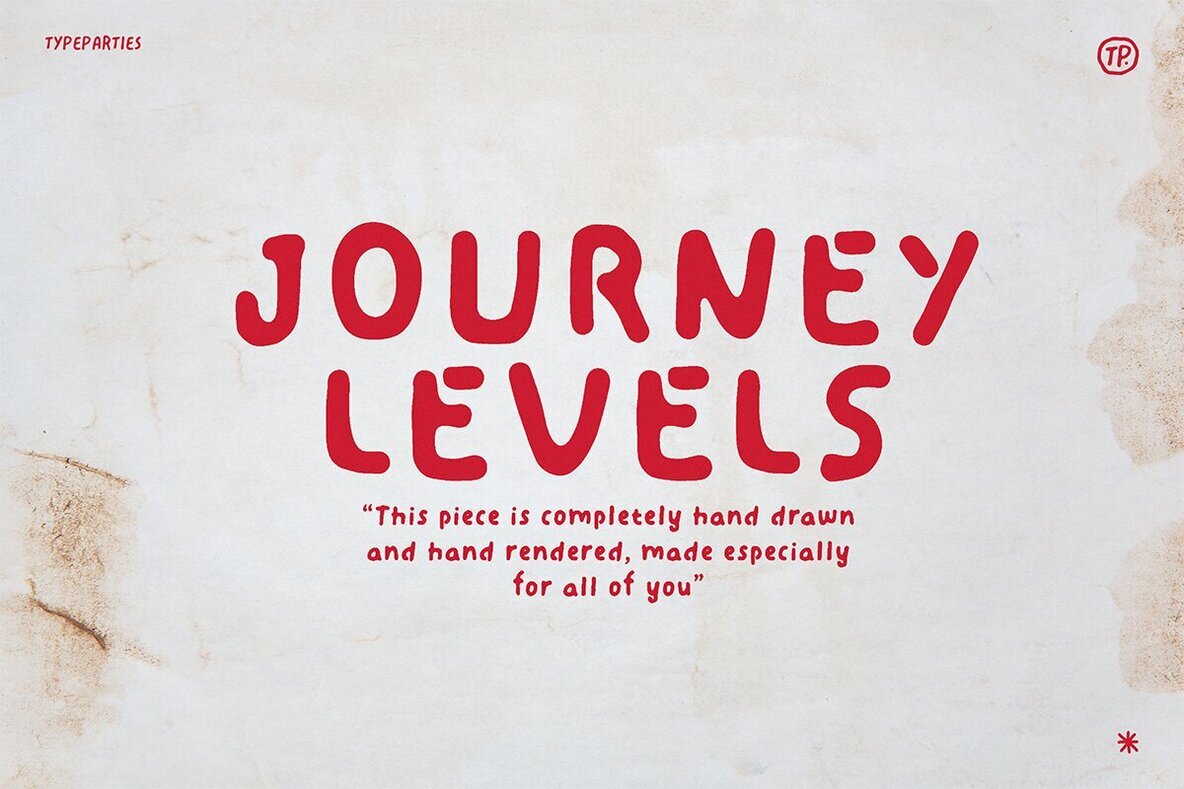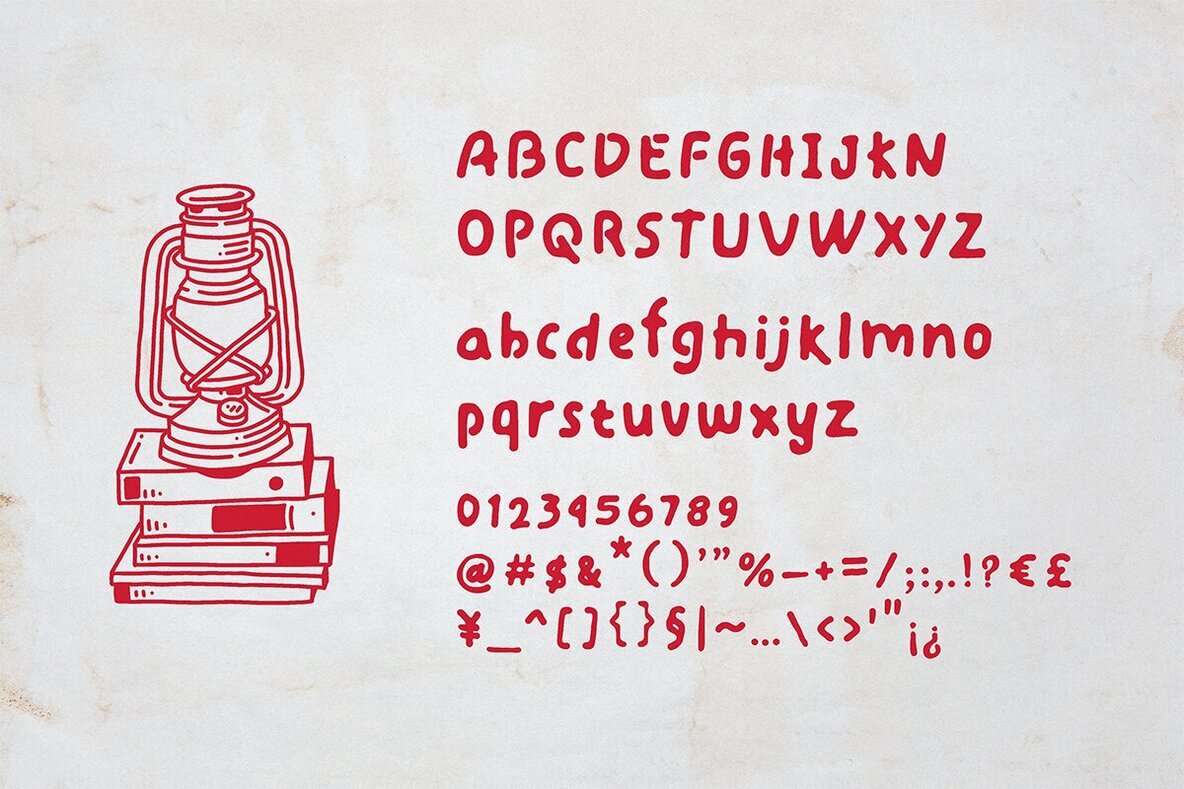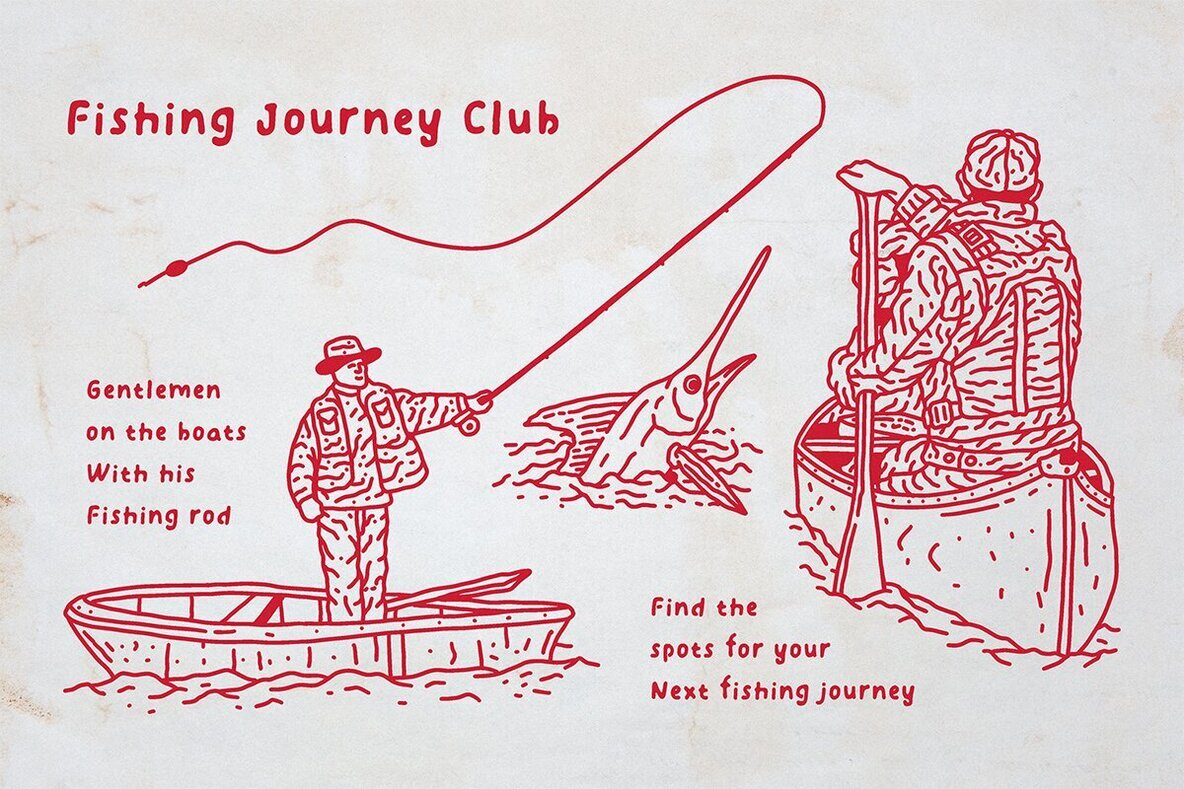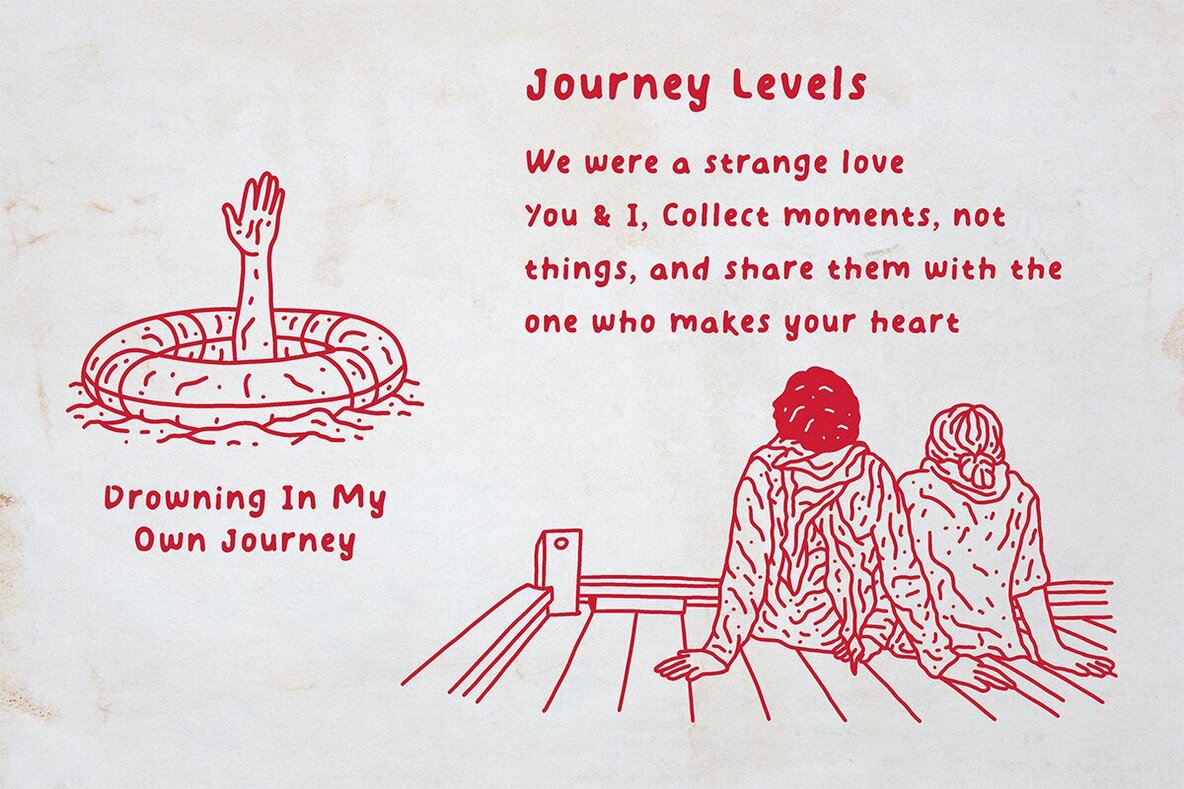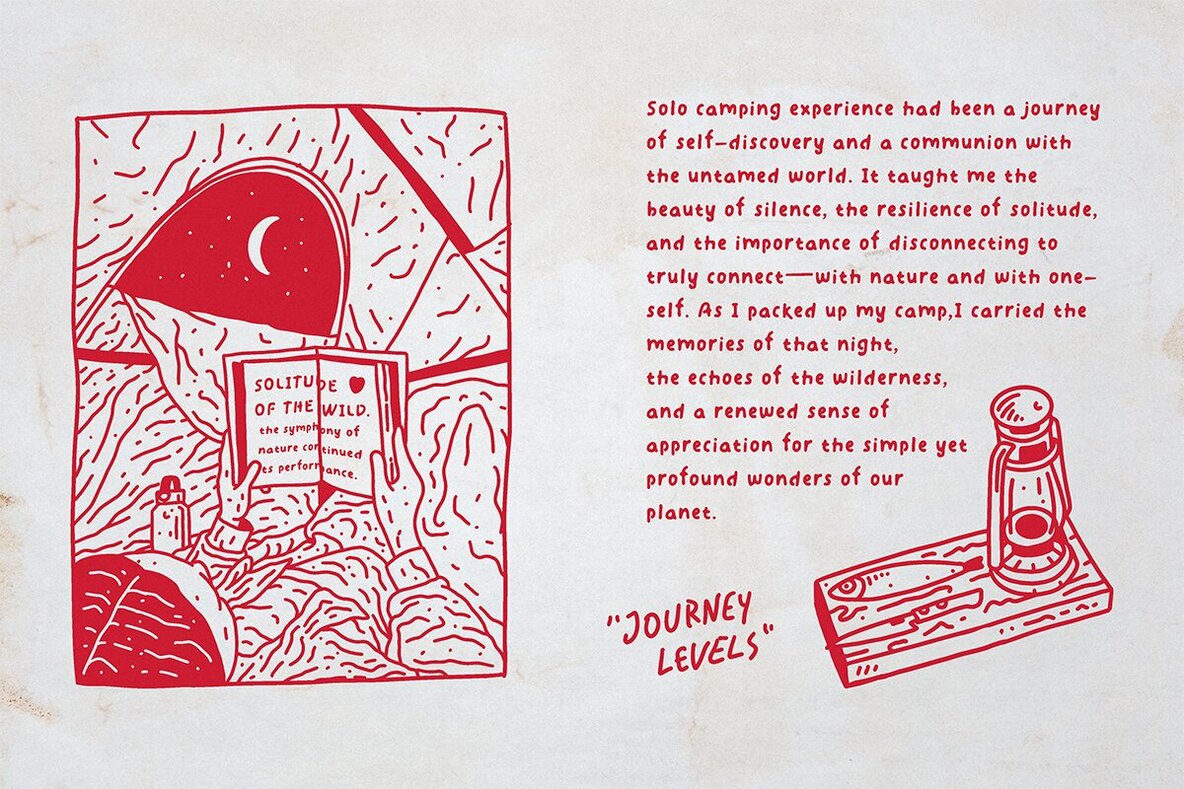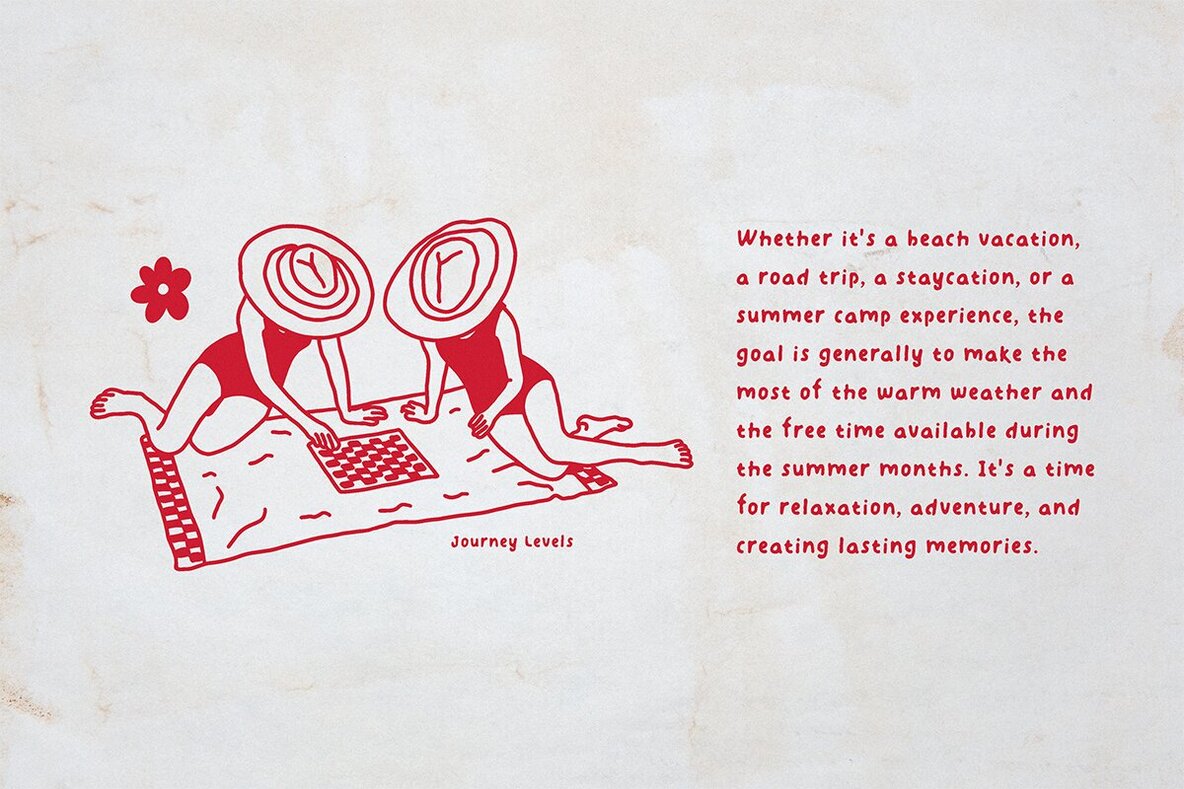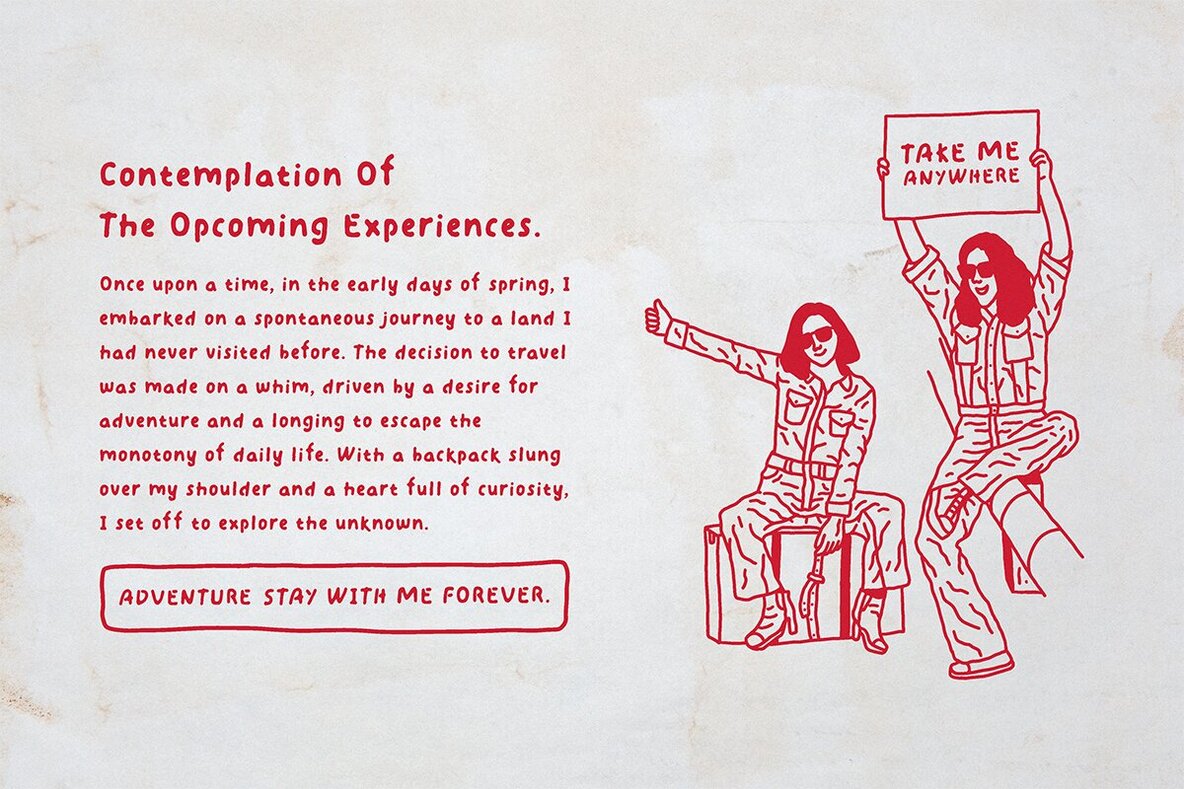
Journey Levels Font
ATP Journey Levels
Journey Levels is a handwritten font that embodies warmth and a personal touch, thanks to its soft, rounded edges and playful irregularities. This typeface elegantly showcases its hand-drawn and hand-rendered essence through bold, organic letterforms and varying stroke widths. Its nostalgic and sincere character makes it an excellent choice for storytelling, creative branding, or projects that cherish authenticity and craftsmanship. A testament to its heartfelt and community-driven spirit, Journey Levels adds a distinctive voice to your creative work. It's perfect for posters, zines, indie packaging, or any digital project that seeks a soulful expression. Let your work speak with the genuine allure of a hand-made font that not only communicates but resonates with your audience.Introducing Journey Levels